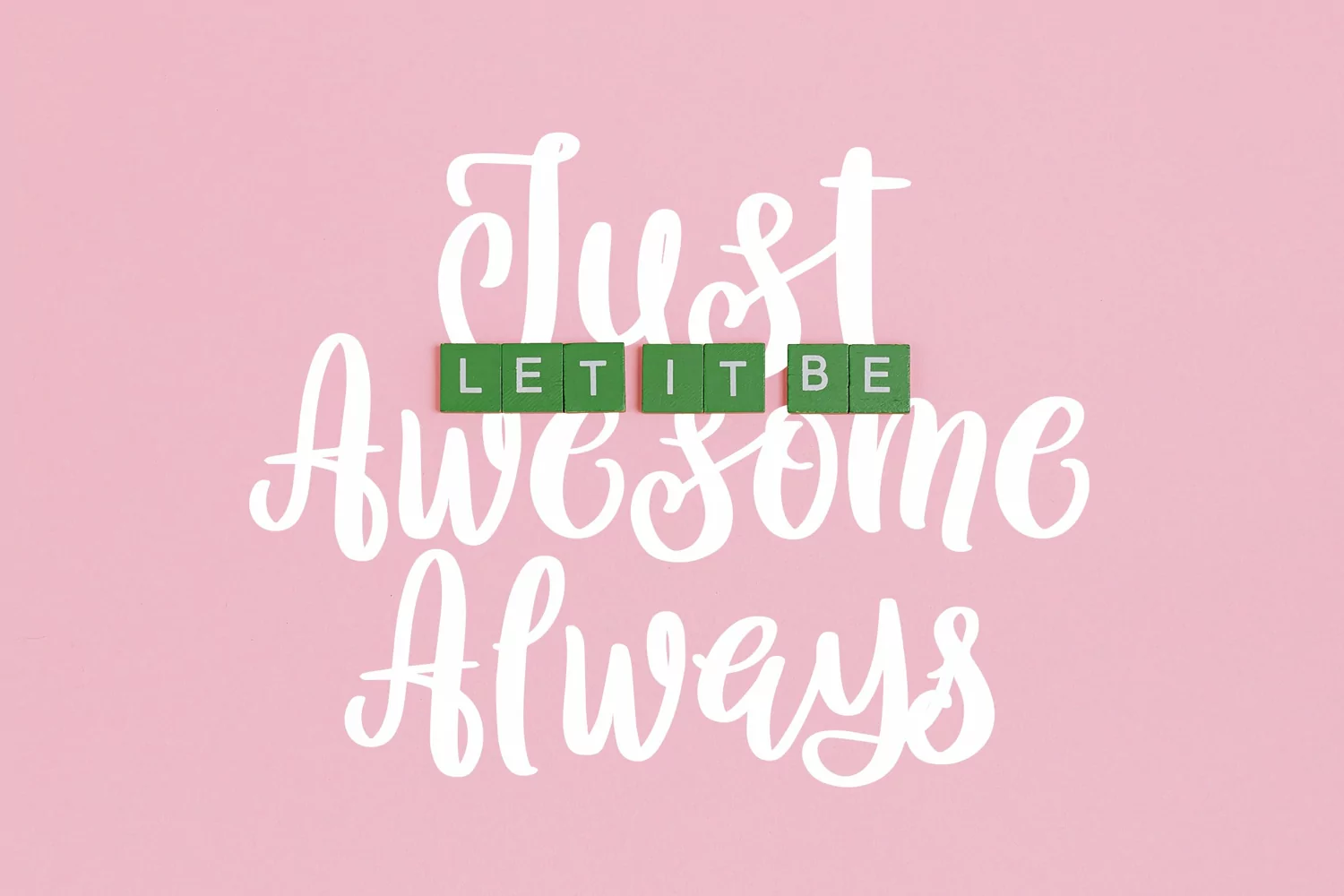
Queen Hearts - Lovely Handrawn Font that contain lowercase, uppercase, symbol, and also support multi language. There’s a lot ligatures in this font. This Font also comes with ligatures, alternates and many more. this font suitable for fashion, branding, catalog and other design what you want.
Queen Hearts